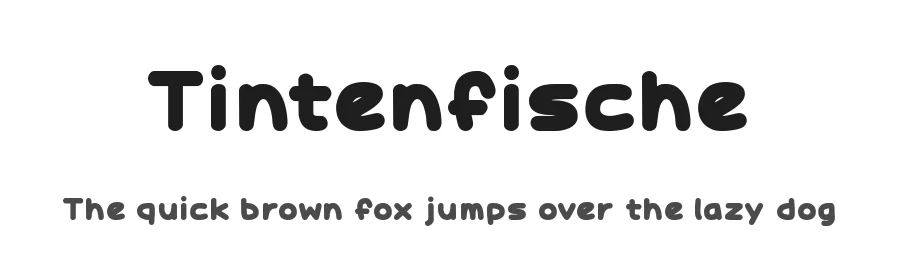
About Quick Jelly Font
Quick Jelly Specifications
| Designer | Yudi Pratama Chandra |
Quick Jelly supports 211 languages.
Quick Jelly Font is a decorative font that shines as a display or heading face. Pair it with a clean sans-serif or serif font for body text β the contrast creates a clear hierarchy while the two styles stay balanced and easy to read.